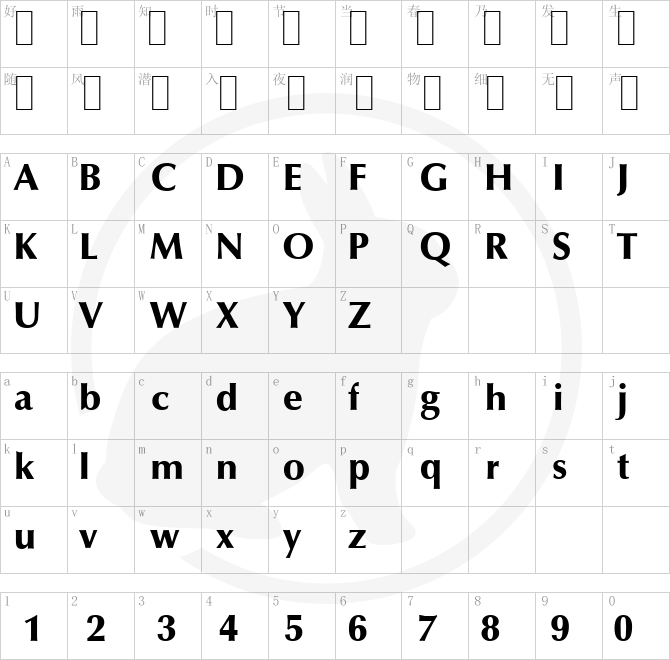
O801-Flare-Xbold-Regular.ttf is a very beautiful artistic font, O801-Flare-Xbold-Regular.ttf is widely used in the design and printing of various books and pictures,O801-Flare-Xbold-Regular.ttf has a strong visual impact,O801-Flare-Xbold-Regular.ttf is a commonly used font in newspapers, magazines and books, and is used in posters, e-commerce Poster design, store design, logo design, font design and other fields.O801-Flare-Xbold-Regular.